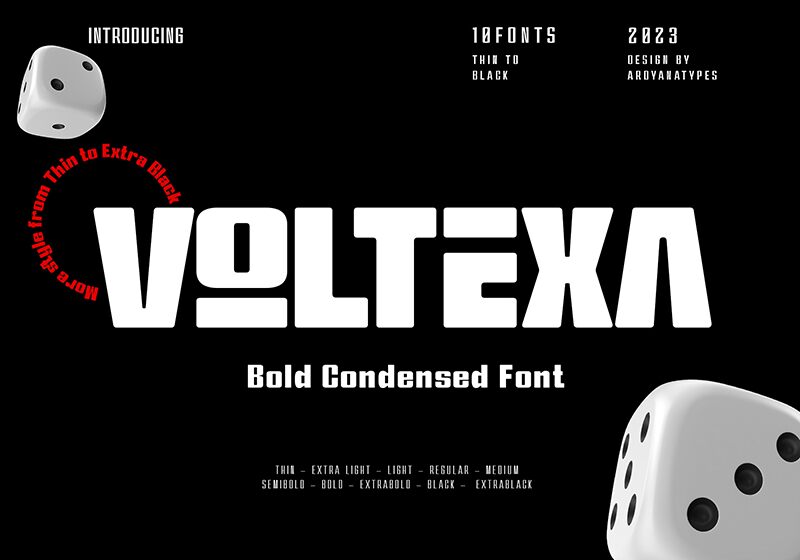
Voltexa Regular
Voltexa, designed by the talented Ardyana Putra, is a display font that captures the essence of modernity with its techno style. Its semi-light weight combined with an extra-condensed width creates a sleek and futuristic aesthetic. The sharp lines and geometric form of Voltexa exude a sense of innovation and precision, making it an ideal choice for projects that require a touch of cutting-edge visual appeal.
The font's clean, uncluttered design allows it to stand out in minimalist compositions while maintaining legibility and impact. Voltexa's distinctive character shapes are not only visually striking but also imbued with versatility; it can be seamlessly integrated into various creative endeavors such as branding, tech startups' visuals, event posters or any digital platform looking to convey sophistication and forward-thinking.